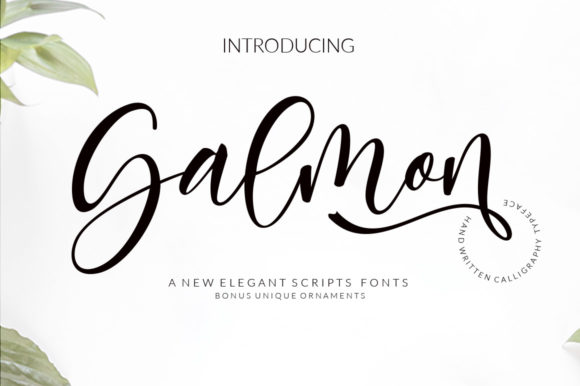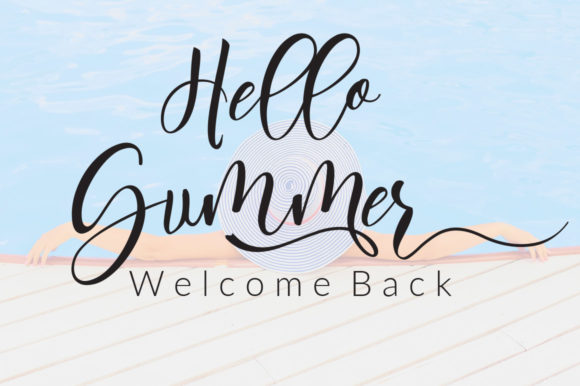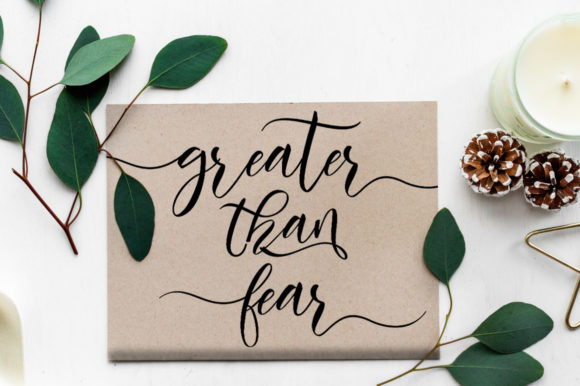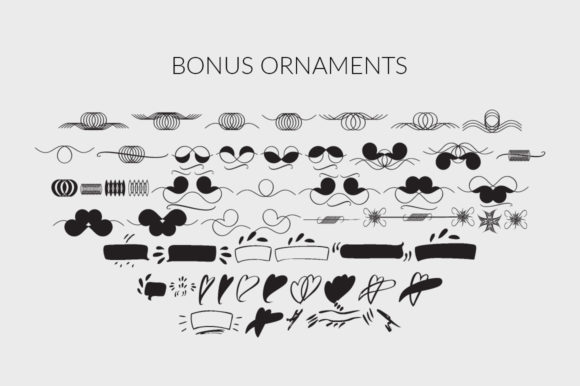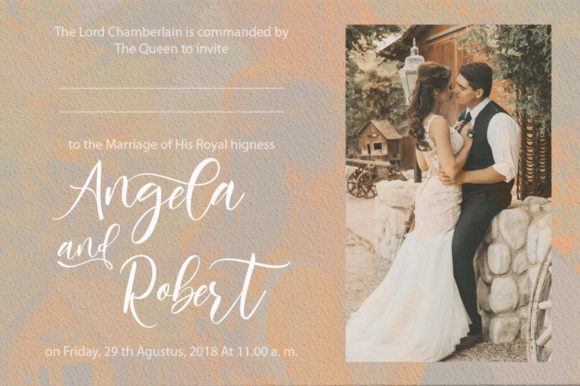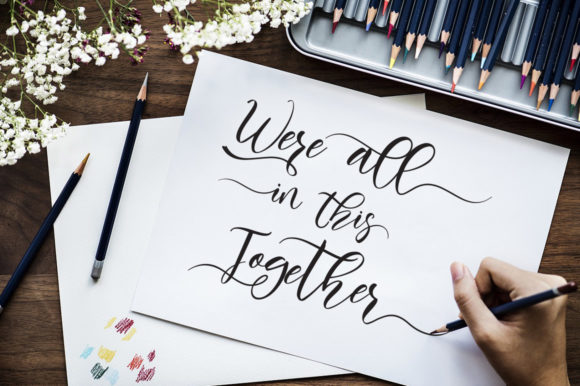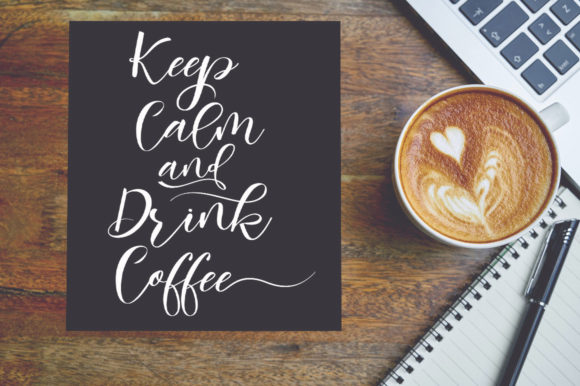
Salmon Font
About Salmon Font
Salmon is a beautiful script font. It has a modern style and comes with decorative ornaments. It is the perfect font for making original and outstanding designs.